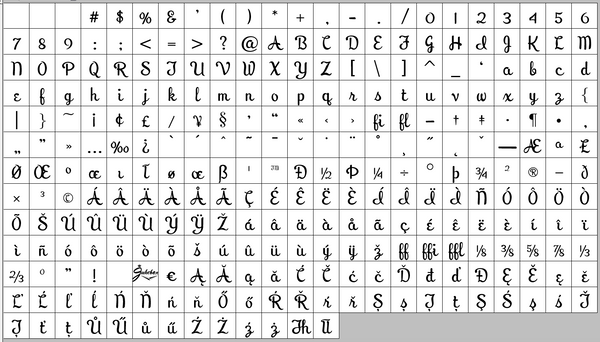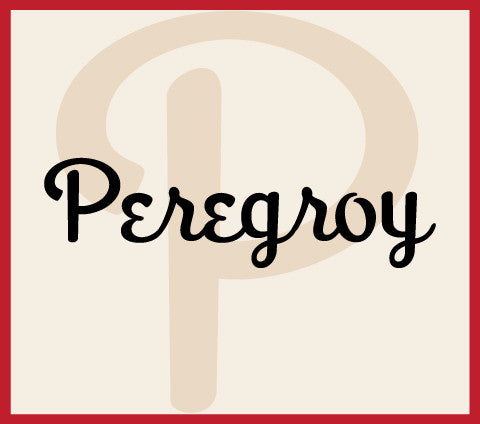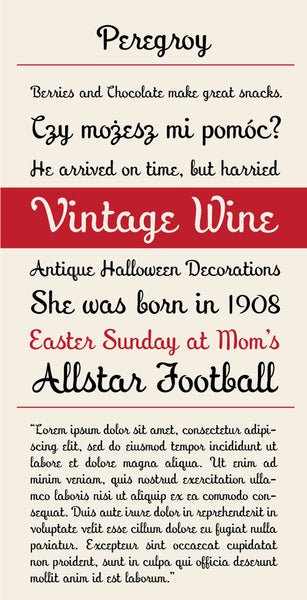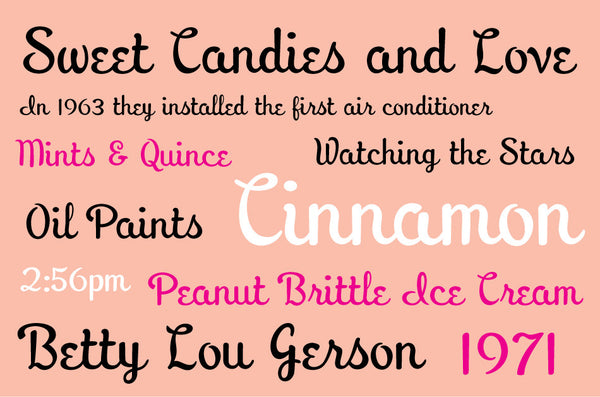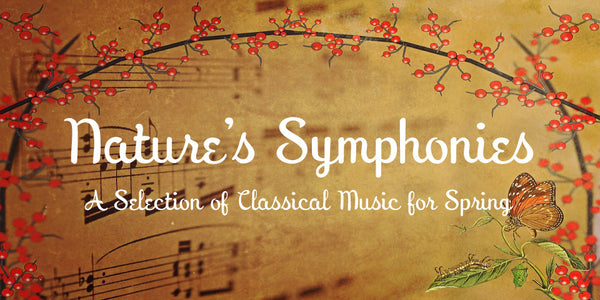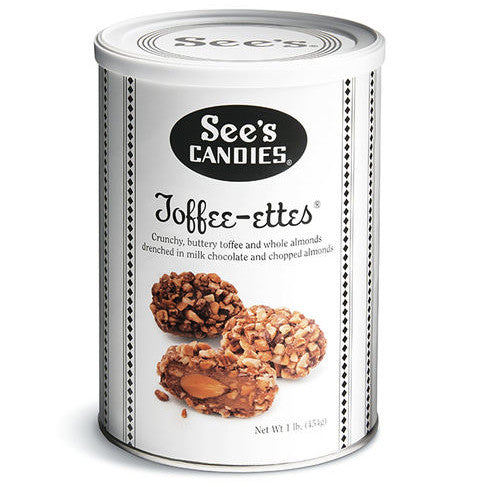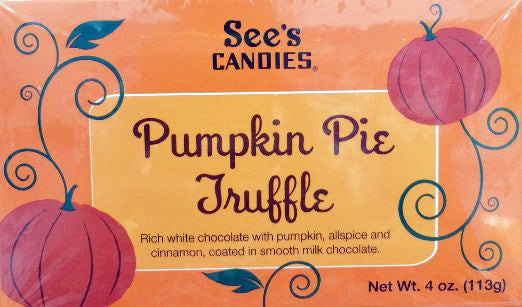
Peregroy
Peregroy is another one of my bestselling fonts! Inspired by the hand-lettered titles of a popular animated film, this font is friendly and engaging. Its feminine charm and simplicity gives it a sense of being welcoming and approachable. It seems to imply relaxing, sunny afternoons.
Notable Use: The famous See's Candies Co. has been using Peregroy for a number of years on a large portion of their product packaging.